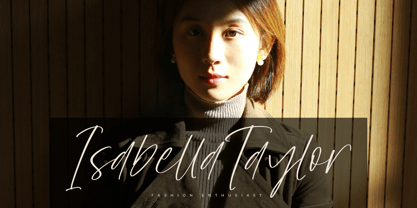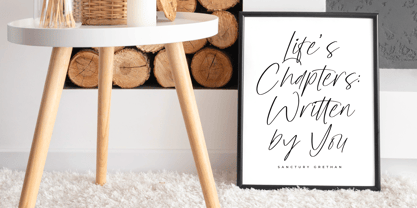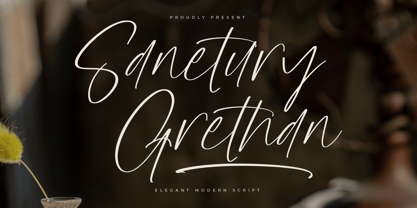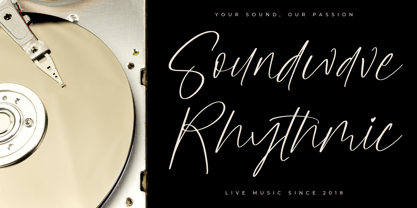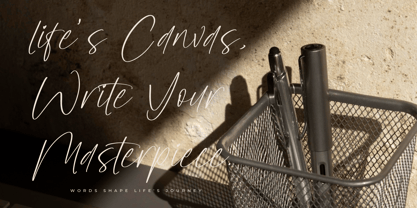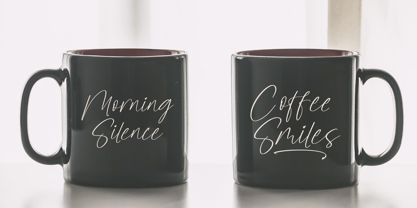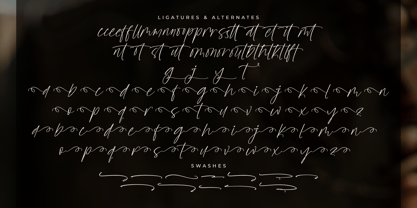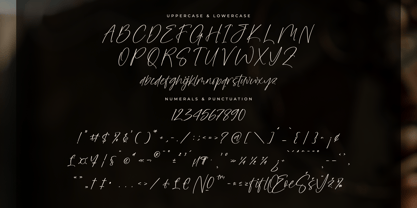
Sanetury Grethan
by Letterena Studios
The Sanetury Grethan Font Family was designed by Heru Utama Putra and published by Letterena Studios. Sanetury Grethan contains 2 styles and family package options. More about this family
Sanetury Grethan is a dazzling handwritten font that exudes charm and elegance. With its fluid strokes and intricate details, it adds a touch of sophistication to any project. Whether used for invitations, branding, or social media graphics, this font captivates with its unique personality and effortless beauty.